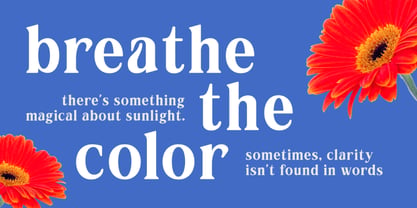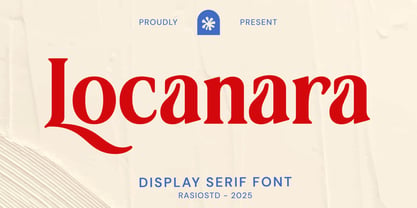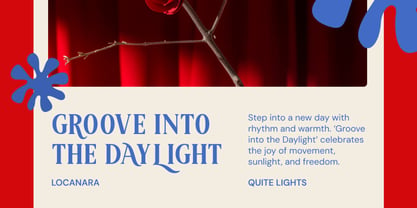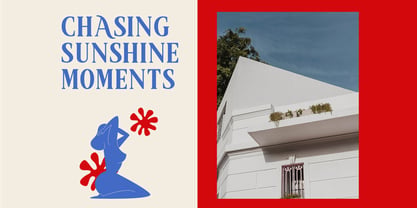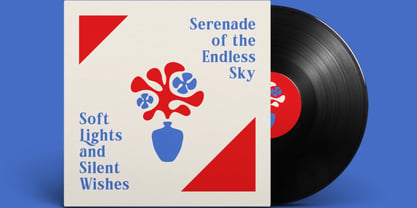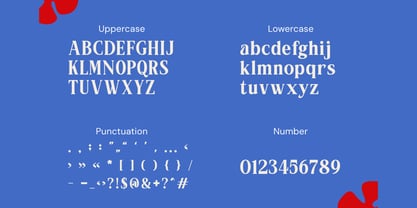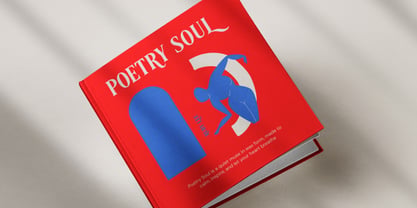
Locanara
by Rasio Studio
The Locanara Font Family was designed by Fajar Indra and published by Rasio Studio. Locanara contains 1 styles. More about this family
Locanara is a vibrant and expressive display serif font that merges classic formality with artistic playfulness. Its soft curves and sharp edges bring a modern twist to traditional serif design, while the rhythmic contrast between thick and thin strokes gives it a distinctive editorial elegance. Perfect for branding, lifestyle design, packaging, and magazine headlines, Locanara captures a sunlit, Mediterranean-inspired warmth that radiates charm and sophistication. It includes uppercase, lowercase, punctuation, and numbers for versatile creative compositions.
Relevance and Use Cases is perfect for branding, editorial layouts, lifestyle packaging, fashion headlines, and artistic visual storytelling. Locanara enhances compositions with its poetic structure and elegant contrast, ideal for projects that balance personality and refinement.
Designers: Fajar Indra
Foundry: Rasio Studio